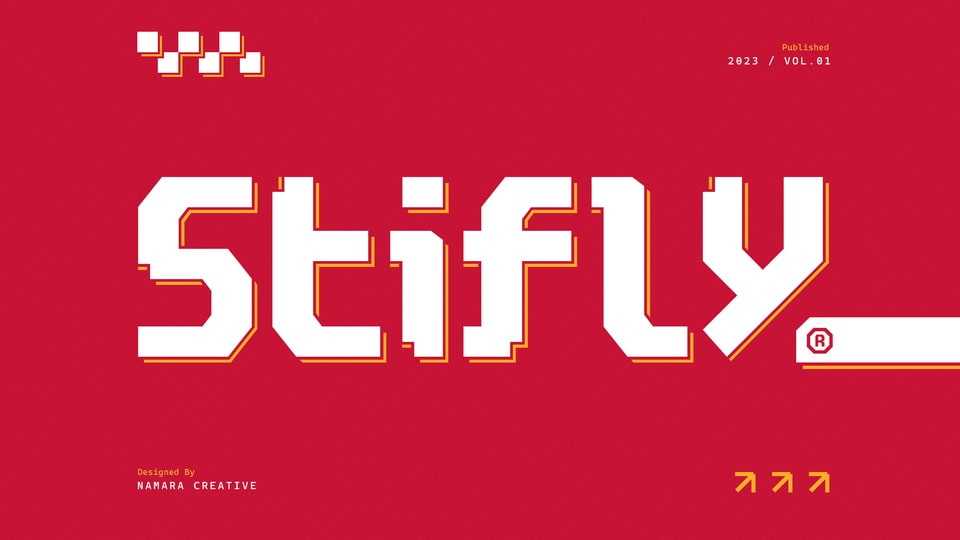
Download Stifly font, a modern pixelated typeface inspired by strong techno block characters and a futuristic look. Well-defined grid structure, where the past and the future converge in perfect balance between simplicity and complexity, ensuring that your words will stand out in any context.
Designer: Namara Creative Studio